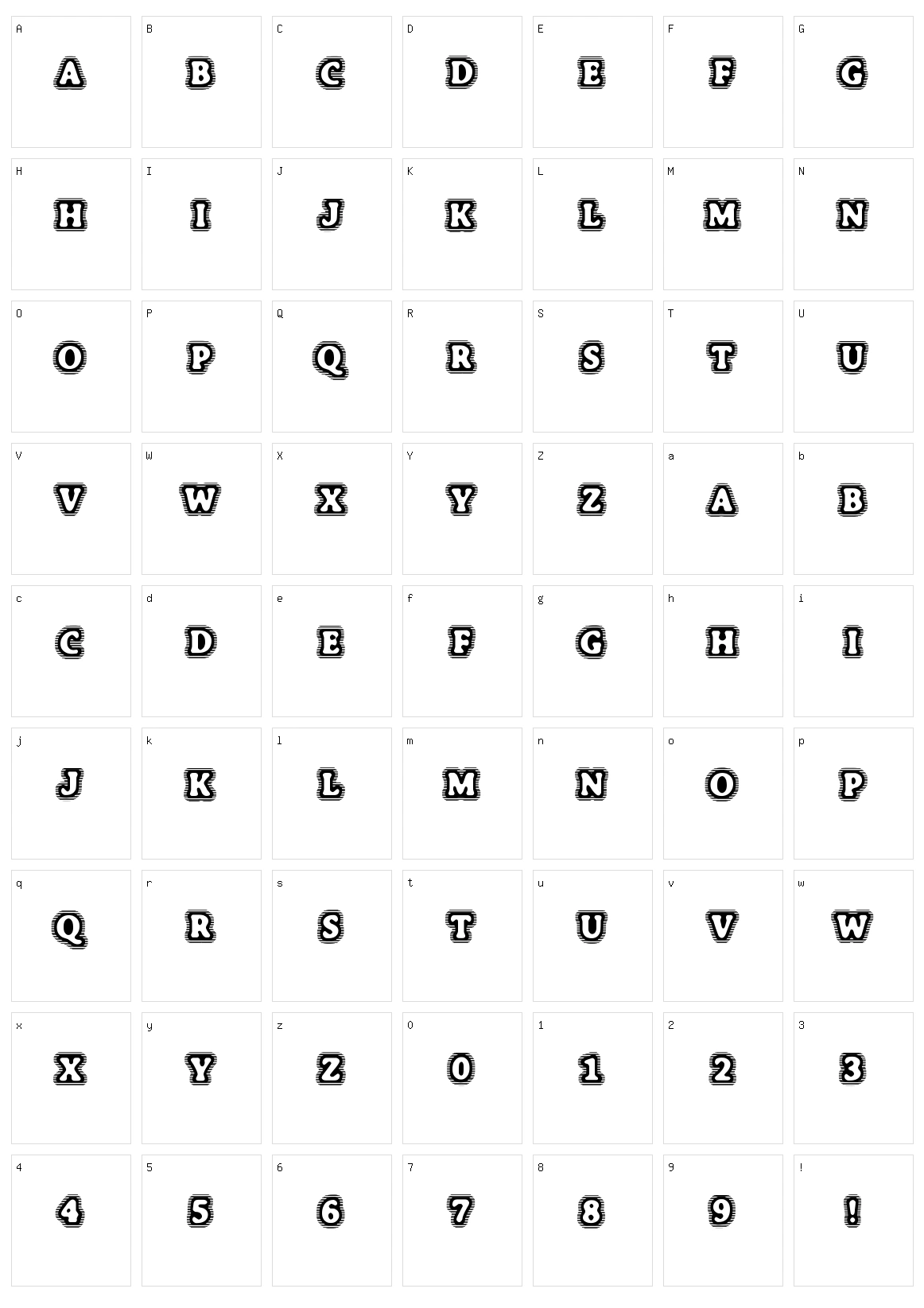
The free font Bone Hymie is carefully designed by Tioem, showcasing a thoughtful balance of creativity and usability and falls under the Groovy font style. When you download the ZIP file, it contains only 16.13 KB of font files, making it lightweight and quick to download. Please review the license details below to understand permitted usage and distribution rights. If license information is not available, we recommend using this font for personal projects only or contacting the author directly for commercial usage permissions.